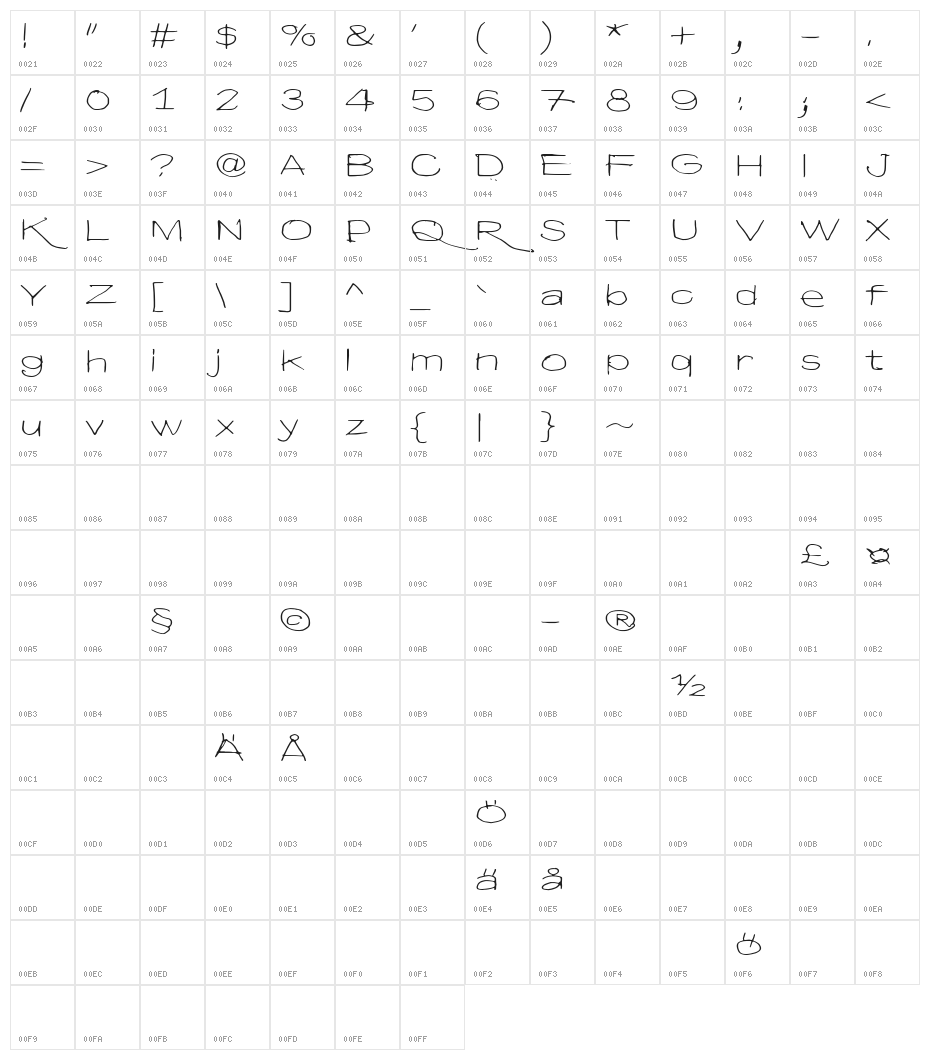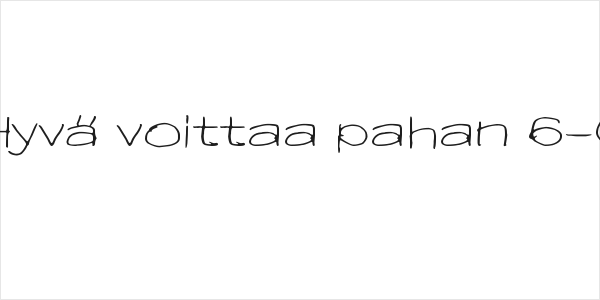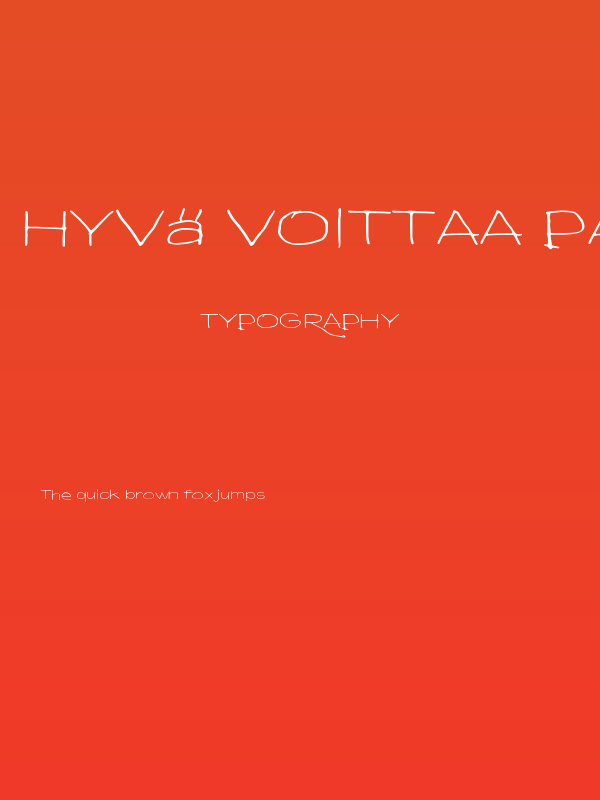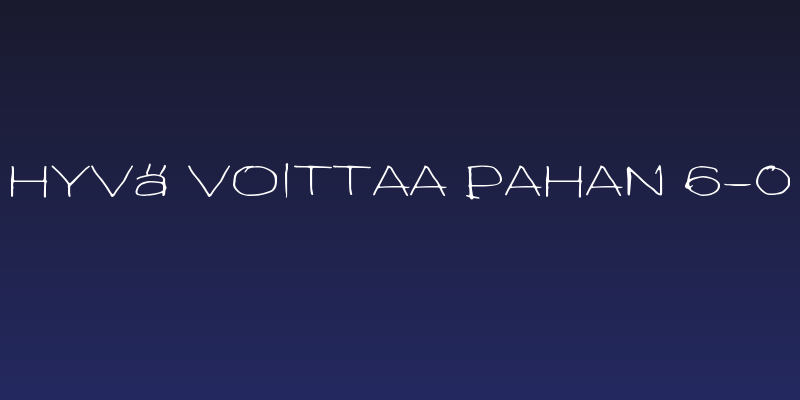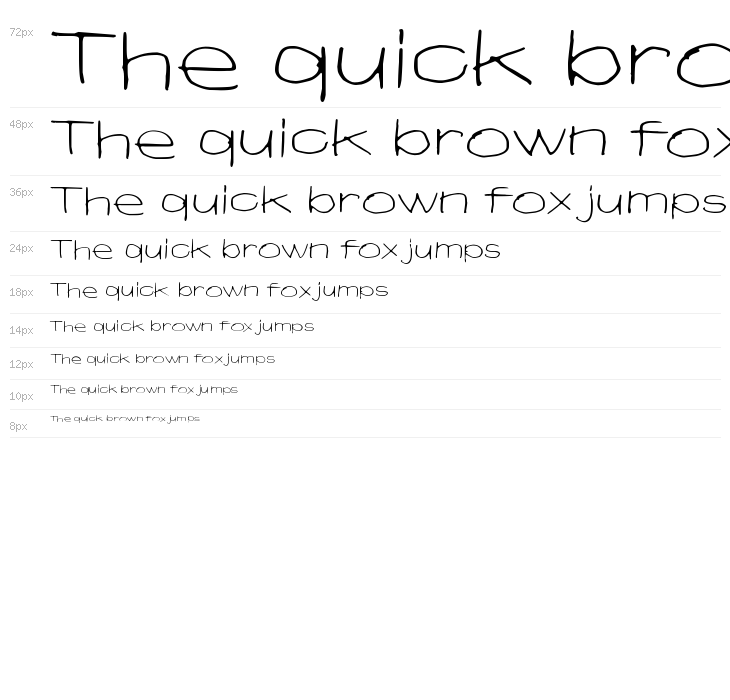
Hyvä voittaa pahan 6-0 Font
Hyvä voittaa pahan 6-0 Description
This font features a playful and whimsical design with a handwritten style. The characters are slightly irregular, giving it a casual and informal appearance. The strokes are thin and vary in thickness, adding a dynamic and lively feel. The uppercase letters have a distinct, quirky flair, while the lowercase letters maintain a consistent flow. Numbers and special characters are designed to match the overall aesthetic, making it suitable for creative projects. The font's unique style is perfect for adding a personal touch to any design.
| Proposed Projects | Ideal for greeting cards, children's books, playful branding, and creative invitations. |